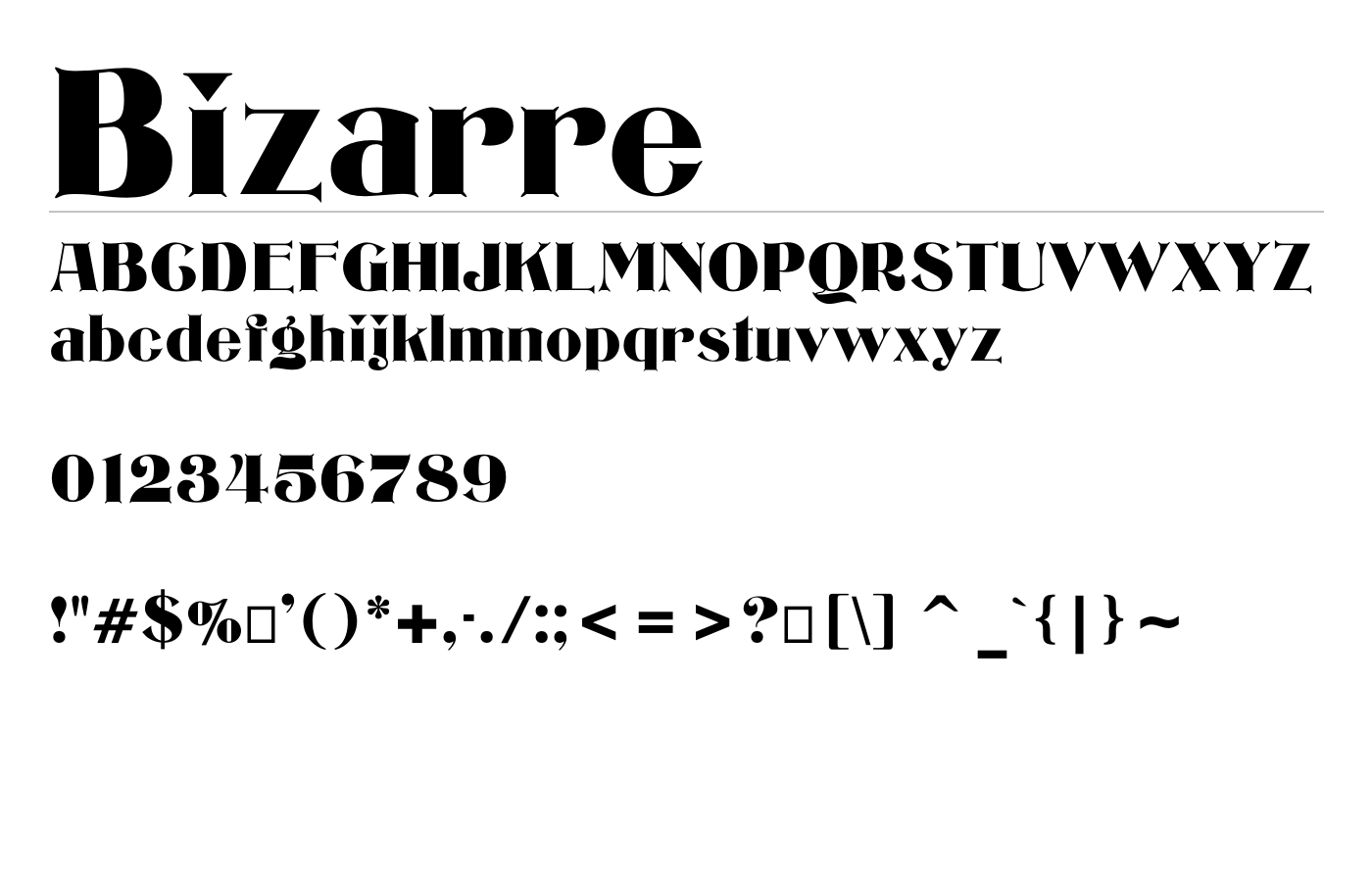
Bizarre Font is a bold, serif typeface with a distinctive vintage vibe, featuring sharp, thick serifs and strong contrast between thick and thin strokes. Its unique, slightly condensed letterforms and decorative details add personality, making it ideal for eye-catching headlines, logos, and branding that calls for a dramatic, elegant, and classic look. This font works well when you want to convey sophistication with a touch of quirkiness.
Bizarre Font
About Bizarre Font